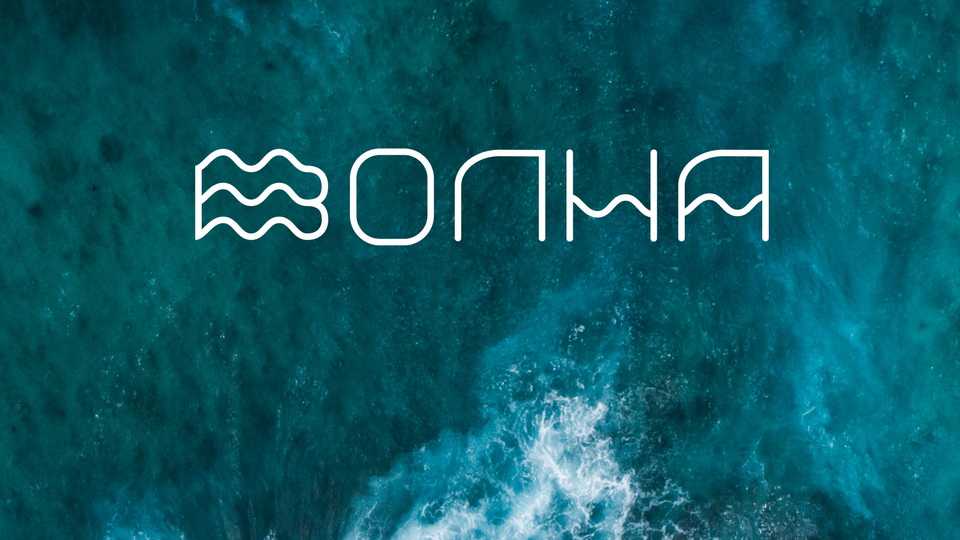
Download Wave font, a decorative display typeface inspired by the sea. With its unique look Wave font is ideal for projects related to nature, posters and headlines.
Designer: Grigory Kopylov